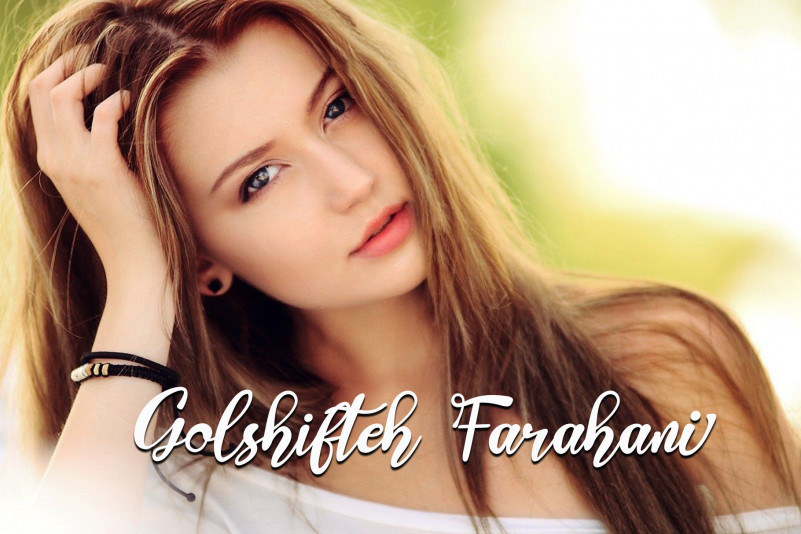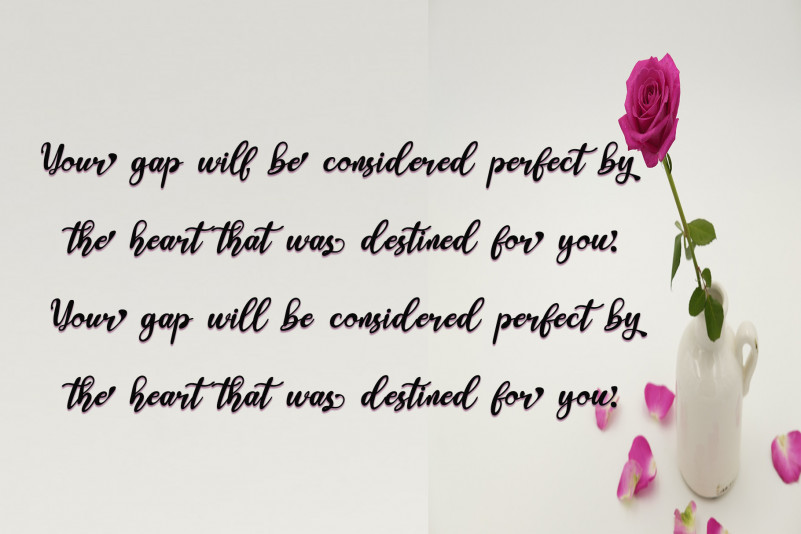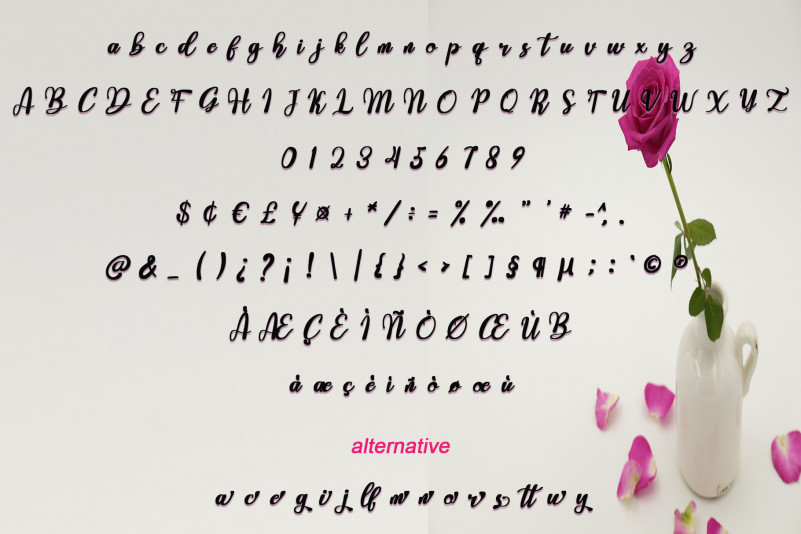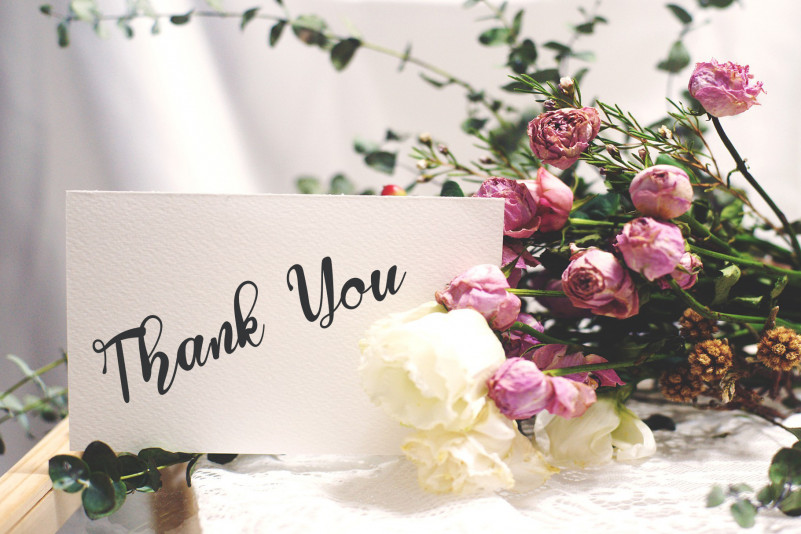
Mothers Day Script Font
This is a romantic and sweet handwritten font with characters that dance along the baseline. It will add a luxurious spark to any design or project while making it naturally attractive and easy to read!